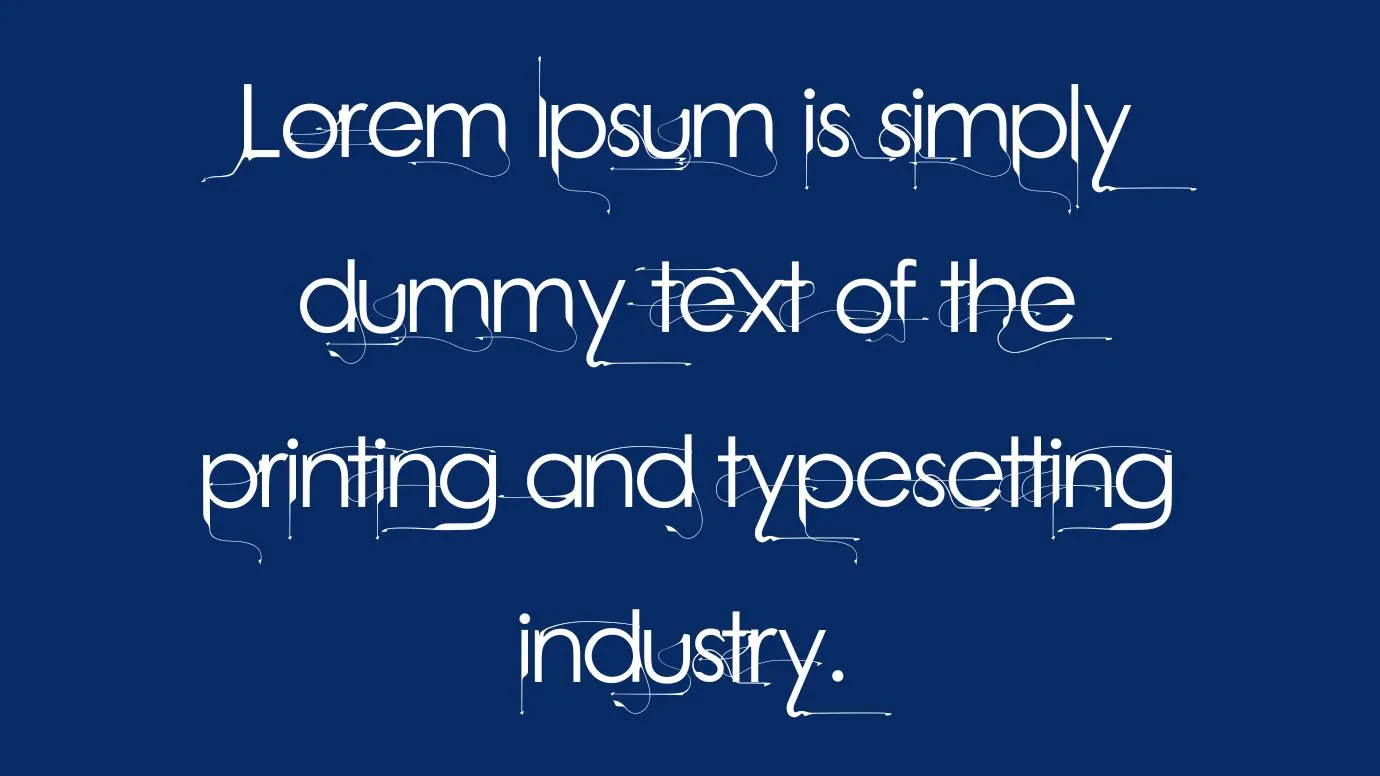
Bright Young Things Font is a fancy design and the unusual appearance of this font design appeal to consumers in general as well as to gaming professionals. With the assistance of the online font tool generator, anyone can create such font design artistically.
The font is frequently used mostly for branding and advertisement initiatives. Video game players as well as other people who value its distinctive appearance are also fans.
In addition to having an appealing appearance, this font can be used to design interesting logos. The Adobe application Canva and Photoshop can be used with this.
Who Created the Bright Young Things Font?
Hugo Beyts created this design that can be utilized for, various categories or data items. The typeface belongs to the fancy font family. It makes it suitable for message tasks like programming when understanding and cleanliness are critical.
What Are the Qualities of Bright Young Things Font?
It is suitable for brochures, posters, video game designs, logo designs, and letters. It can be used in digital offices, marketing offices, and for many tasks. Also, its unique text style makes it a good choice for display designs.
Advantages of Using Bright Young Things Font
This design allows you to create graphic text, logos for websites, template designs, and much more. Using this typeface makes it easy to create readable text, notes, articles, and assignments. Unlock the potential for impressive displays by pairing this typeface with the new french font.
Amazing designs and unique corners can be created with this stunning piece. Text designs can look more stylish with this typeface. It comes in a range of styles, making it suitable for a variety of designs. Designers can create text graphics and name designs by using them.
For usage in programming, transcriptions, word processing, worksheets, conferences, etc. The font type is ideal. Any application that demands a taken-to-the-extreme typeface would benefit greatly from using the typeface.
| Name | Bright Young Things Font |
| Designer | Hugo Beyts |
Is Bright Young Things a great font?
This typeface is a perfect typeface for features for your websites. In expansion, it is right for any project such as advertisements, site layouts, social media posts, brands, and more.